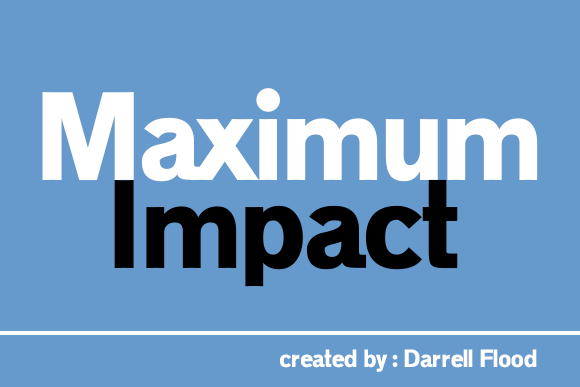
**Unleash Boldness with Maximum Impact Font**
Prepare to make a lasting impression with Maximum Impact, a font that exudes power and confidence. Its sturdy sans serif characters command attention, ensuring your headlines and designs stand out from the crowd.
Crafted by Darrell Flood, an esteemed font designer, Maximum Impact is not just a typeface; it's a declaration of strength. Its every curve and line carries a weight that commands attention, making your words impossible to ignore.
Whether gracing your website, print materials, or social media feeds, Maximum Impact empowers your message to cut through the noise. Its bold presence will captivate your audience, leaving an unforgettable impact that resonates long after the first glance.